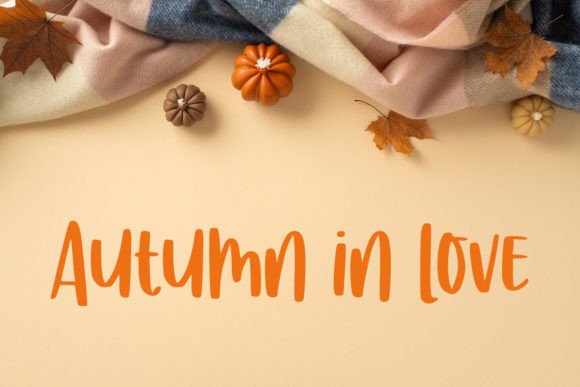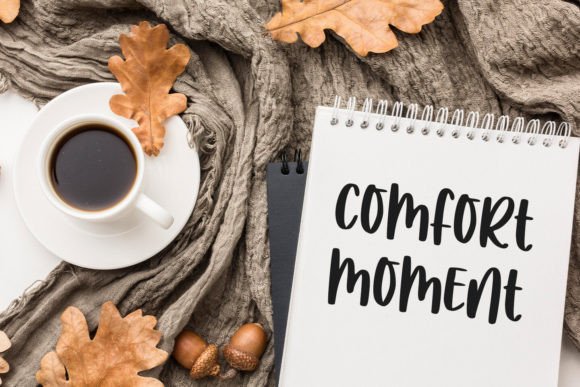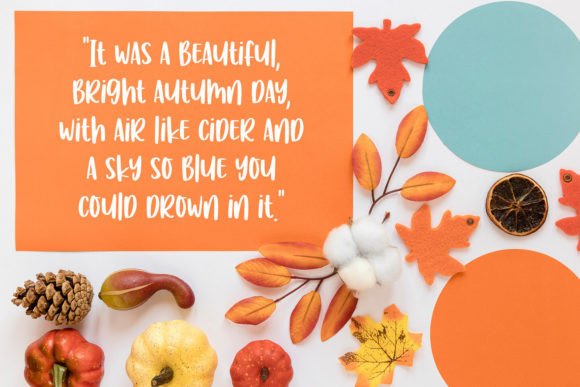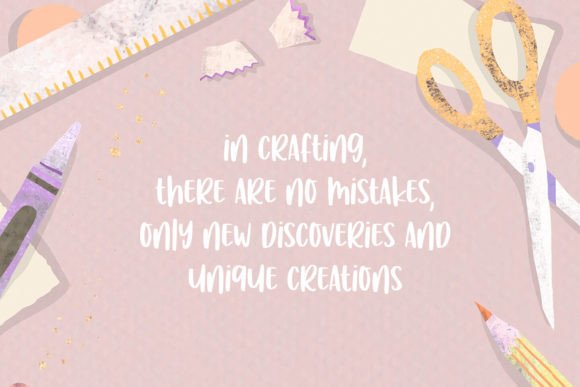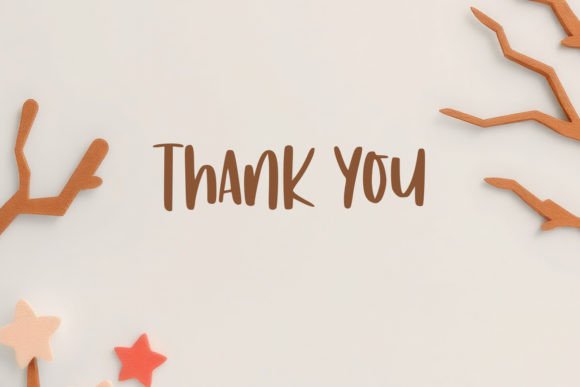
Introduction to Daun Jatuh Font
One such font that has been making waves in the design community is the Daun Jatuh Font. Its sweet and friendly handwritten style has won the hearts of many designers, and for good reason. This versatile font is not just a design resource, but a tool that can bring your creative project to life with its natural and unique charm.
Key Features of Daun Jatuh Font
- High-quality design resource with a unique, hand-drawn aesthetic, perfect for creative projects
- Features a large character set, including uppercase and lowercase letters, numbers, and punctuation marks
Honest Review: Daun Jatuh Font
As a designer, I’m always on the lookout for high-quality design resources that can elevate my creative projects. The Daun Jatuh Font is one such resource that caught my attention, and I’m excited to share my honest review with you.
- Unique aesthetic: The Daun Jatuh Font has a distinctive, modern design that sets it apart from other fonts.
- Limited font styles: The Daun Jatuh Font only comes in a few styles, which may not be sufficient for complex design projects.
- Not suitable for all applications: The font’s unique design may not be suitable for projects that require a more traditional or formal look.
Overall, I’m impressed with the Daun Jatuh Font’s potential to add a creative touch to design projects. While it may have some limitations, it’s a valuable resource for designers looking for a high-quality, free font with a unique aesthetic.
The Daun Jatuh Font is suitable for a wide range of creative projects, including logos, business cards, brochures, and social media graphics. Its unique design makes it stand out from more traditional fonts, making it an excellent choice for any design project that requires a touch of elegance and sophistication.